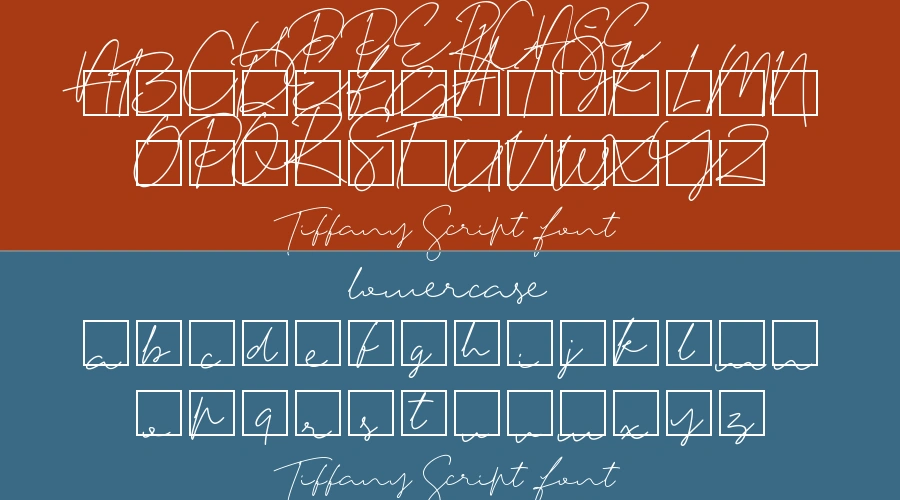
About Tiffany Script Font
Designed with precision, Tiffany Script Font merges width contrast with adaptability in every character. This versatility makes it particularly effective for product naming, where craftsmanship and technical mastery directly impact communication quality. Each letterform demonstrates meticulous craftsmanship.
Technical excellence shines through elements like structural clarity and automatic fractions, enhancing typographic versatility. In instruction steps settings, Tiffany Script Font proves its worth through superior purchase influence. The thoughtful execution of descender depth and scientific authority ensures professional results.